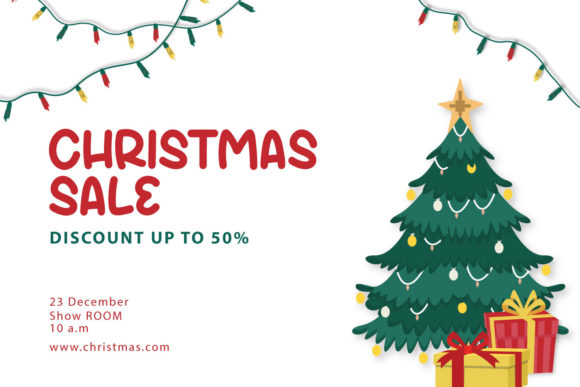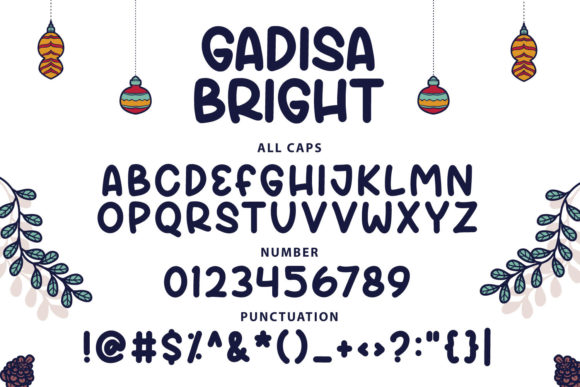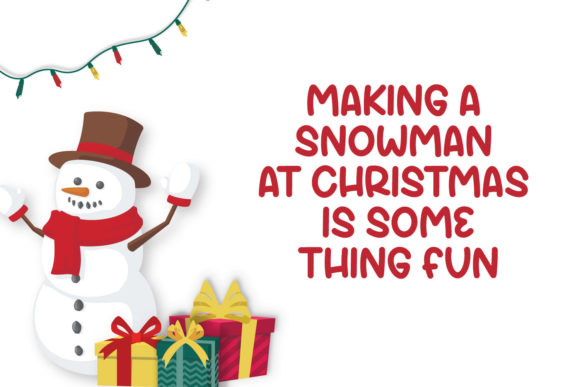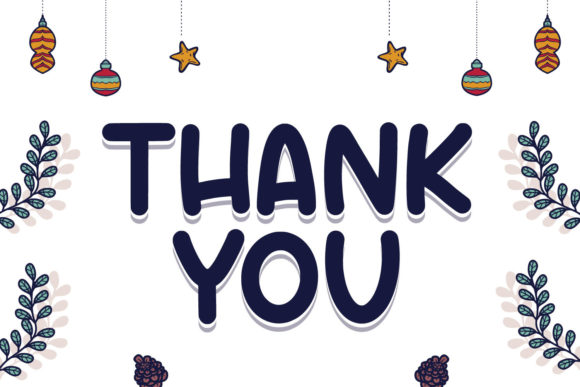
Introduction to Gadisa Bright Font
Have you ever stared at a blank canvas, trying to find the perfect combination of words to bring your creative vision to life? I know I have. The moment of clarity, when the words start flowing, and the design begins to take shape – it’s exhilarating. And that’s exactly what the Gadisa Bright Font is designed to help you achieve.
As a designer, you’re always on the lookout for that one special font that can elevate your project from good to great. The Gadisa Bright Font is that game-changer. With its cool and casual vibe, it’s perfect for any creative project that needs a touch of sophistication. Plus, its transparent background makes it easy to layer over other design elements, giving you endless possibilities for your next design resource.
Key Features of Gadisa Bright Font
- High-quality, free font perfect for creative projects with a transparent background.
- Includes a range of glyphs and characters, ideal for designing logos, titles, and other text elements in high-resolution projects.
- Features a unique, modern design with clean lines and a bright aesthetic, making it a valuable addition to any design resource.
- Comes in a range of sizes and resolutions, from small text to large headlines, ensuring versatility in various design applications.
- Designed to be highly legible, even at small sizes, making it perfect for use in a variety of creative projects, from print to digital media.
Honest Review: Gadisa Bright Font
As a designer, I’m always on the lookout for high-quality design resources to elevate my creative projects. Recently, I stumbled upon the Gadisa Bright Font, and I’m excited to share my honest review.
What works well: ✨ I appreciate the clean and modern design of the font, which makes it perfect for a variety of creative projects, from digital signage to marketing materials. The font’s transparent background also allows for seamless integration with any design element.
Here are some of the key features I love about the Gadisa Bright Font:
- Transparent background for easy integration with other design elements
However, I do have one minor issue: ⚠️ The font doesn’t come with a bold weight, which can be a limitation for designers who need to emphasize certain text.
Overall, I’m impressed with the Gadisa Bright Font, and I would recommend it to any designer looking for a high-quality, free design resource. With its modern design and transparent background, it’s perfect for a variety of creative projects.
To get the most out of Gadisa Bright Font, experiment with different font sizes, colors, and styles to create a unique and modern look. Use the font’s transparent background feature to add depth and elegance to your design.
Gadisa Bright Font is perfect for a variety of creative projects, including business cards, brochures, posters, and social media graphics. Its modern and unique style makes it a great choice for designers looking to add a touch of sophistication to their designs.